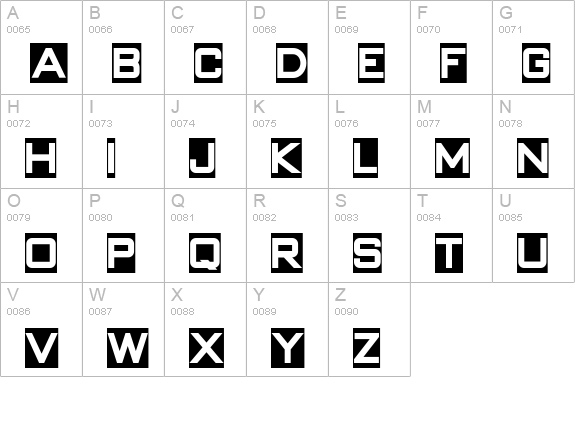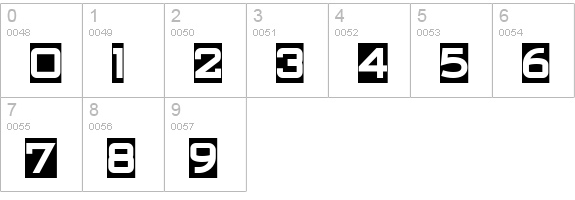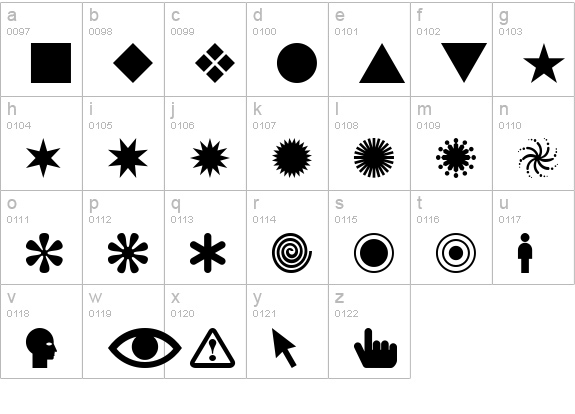
Swish Buttons NF Font Details
Swish Buttons NF font is a charming and elegant typeface perfect for adding a touch of sophistication to your designs. Its sleek lines and stylish curves make it ideal for a variety of projects, from branding to invitations. The font exudes a sense of class and refinement that will elevate any design it is used in. What's more, Swish Buttons NF font is completely free to download at FontsMarket.com. This means you can add this beautiful typeface to your collection without any cost, making it a fantastic choice for designers on a budget. Don't miss out on the opportunity to enhance your creations with the timeless elegance of Swish Buttons NF font - download it today and elevate your designs to the next level.